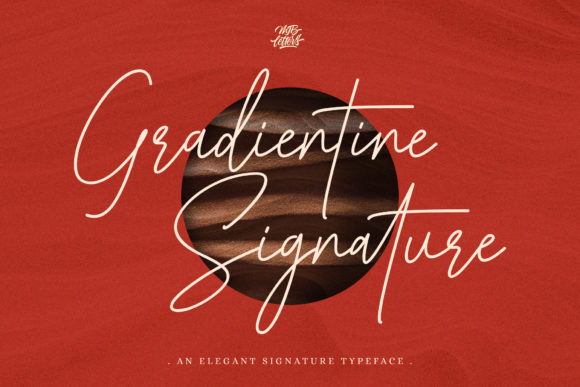
Introducing Gradientine Signature Font: A Romantic and Sweet Calligraphy Typeface
Are you looking for a font that can add a touch of elegance and romance to your designs? Look no further than the Gradientine Signature Font. This beautiful calligraphy typeface is perfect for those who want to add a personal and sweet touch to their projects. In this article, we’ll take a closer look at the features of Gradientine Signature and why it’s a must-have for designers and crafters alike.
What is Gradientine Signature Font?
Gradientine Signature is a romantic and sweet calligraphy typeface that features characters that dance along the baseline. It has a casual, yet elegant touch that makes it perfect for a variety of design projects, from wedding invitations and stationery to branding and packaging.
How Can I Use Gradientine Signature Font?
Gradientine Signature is a versatile font that can be used for a wide range of design projects. Here are just a few ideas to get you started:
- Wedding invitations and stationery: Add a touch of romance and elegance to your wedding designs with Gradientine Signature.
- Branding and packaging: Use Gradientine Signature to create beautiful and eye-catching packaging and branding materials.
- Social media graphics: Add a personal touch to your social media graphics with Gradientine Signature.
- Signs and posters: Use Gradientine Signature to create beautiful and eye-catching signs and posters.
What are the Benefits of Using Gradientine Signature Font?
There are many benefits to using Gradientine Signature Font in your designs. Here are just a few:
- Unique and elegant look: Gradientine Signature has a unique and elegant look that will set your designs apart from the crowd.
- Versatile: Gradientine Signature can be used for a wide range of design projects, from wedding invitations to branding and packaging.
- High-quality: Gradientine Signature is a high-quality font that is designed to look great in any design.
Tips and Tricks for Using Gradientine Signature Font
Here are a few tips and tricks to help you get the most out of Gradientine Signature Font:
- Experiment with different colors: Gradientine Signature looks great in a variety of colors, so don’t be afraid to experiment and find the perfect look for your design.
- Use it with other fonts: Gradientine Signature pairs well with other fonts, so try using it with a bold font for a contrasting look.
In conclusion, Gradientine Signature Font is a beautiful and elegant calligraphy typeface that is perfect for designers and crafters alike. With its casual yet elegant touch, PUA encoding, and versatility, it’s a must-have for anyone looking to add a touch of romance and sweetness to their designs.